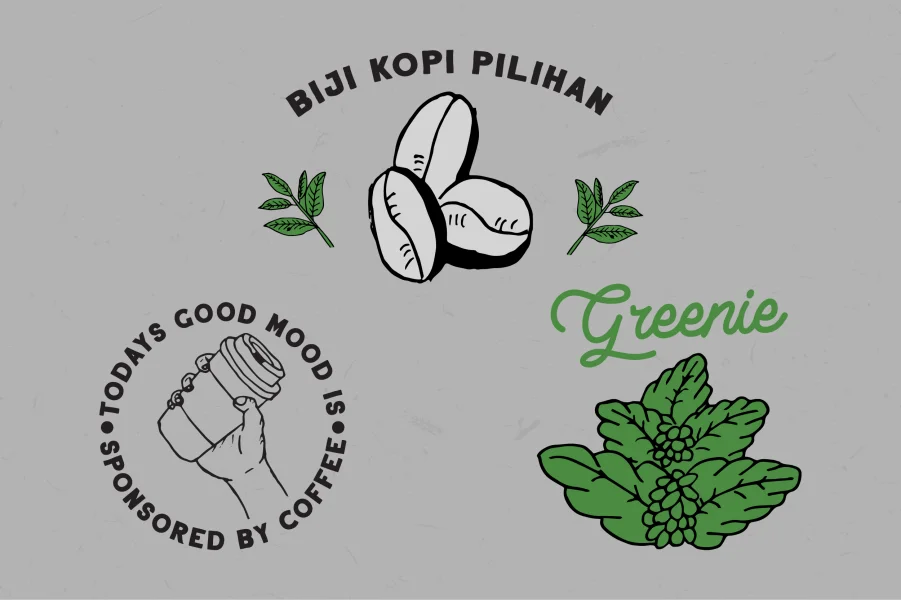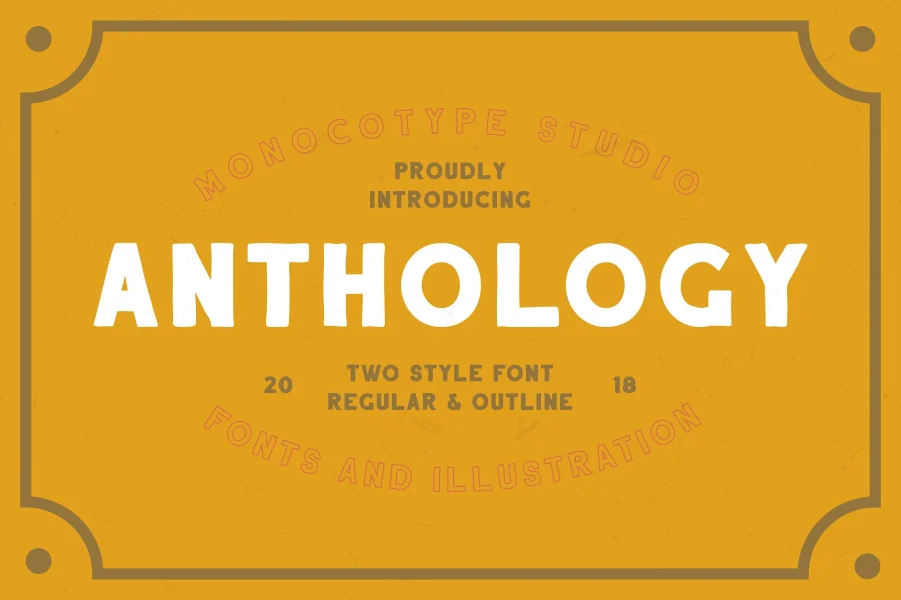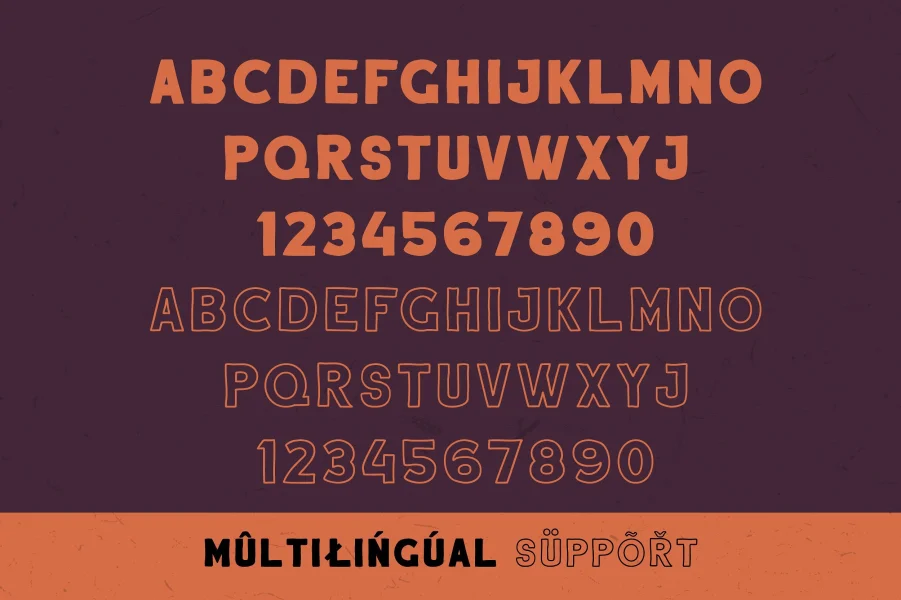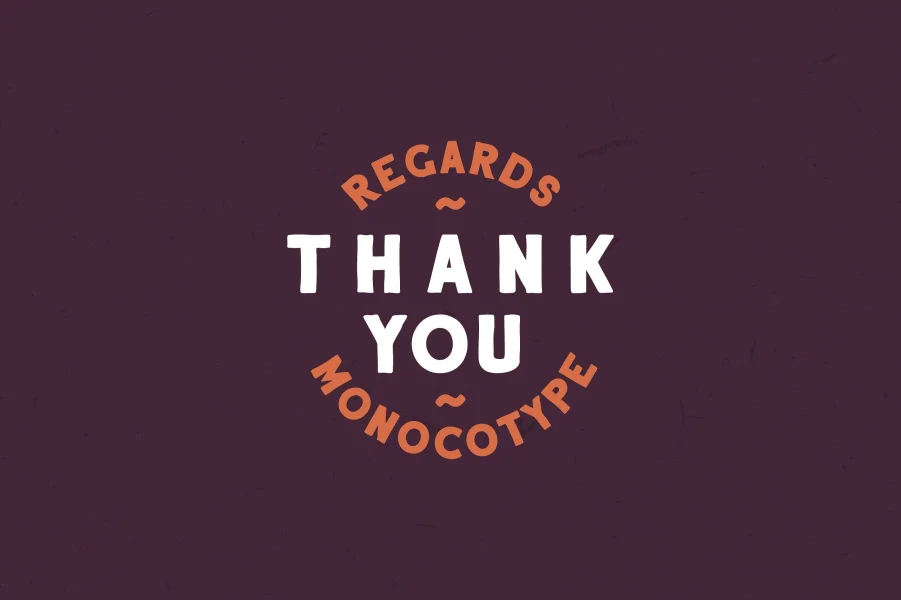
Anthology is a handcrafted sans serif font that has two styles, regular and outline. The two styles are suitable for each other, to make your project look awesome.